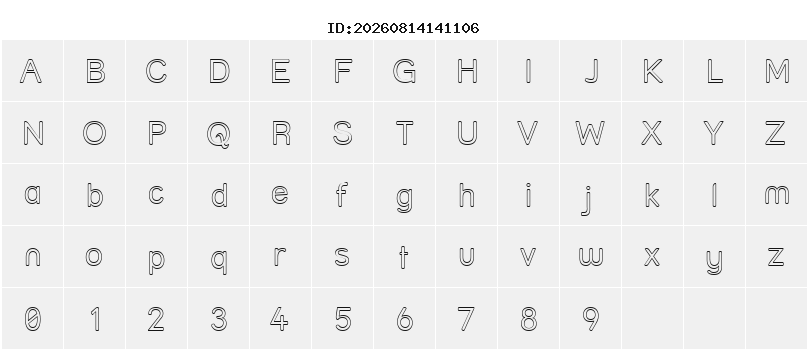
About Street Outline.ttf
Street Outline.ttf is a modern, elegant sans-serif font designed for ultimate readability and visual harmony. Perfect for branding, headlines, web design, and print materials.